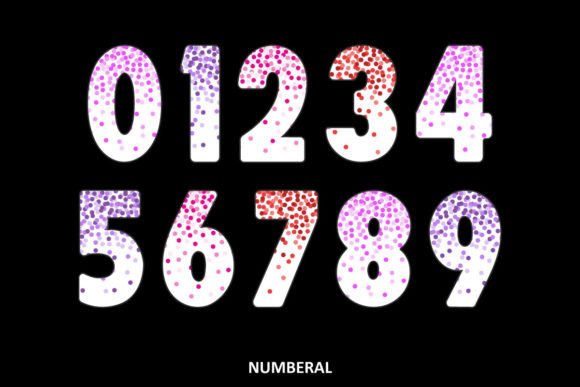
Confetti Color Font
Getting ready to celebrate something special? I’ve created a font that is very colorful and is ready for any celebration. Our Confetti color font will be the life of the party! Hooray! This lively lettering will be perfect for birthday cards, tags and bulletin boards, party invitations, decorations, and favors.